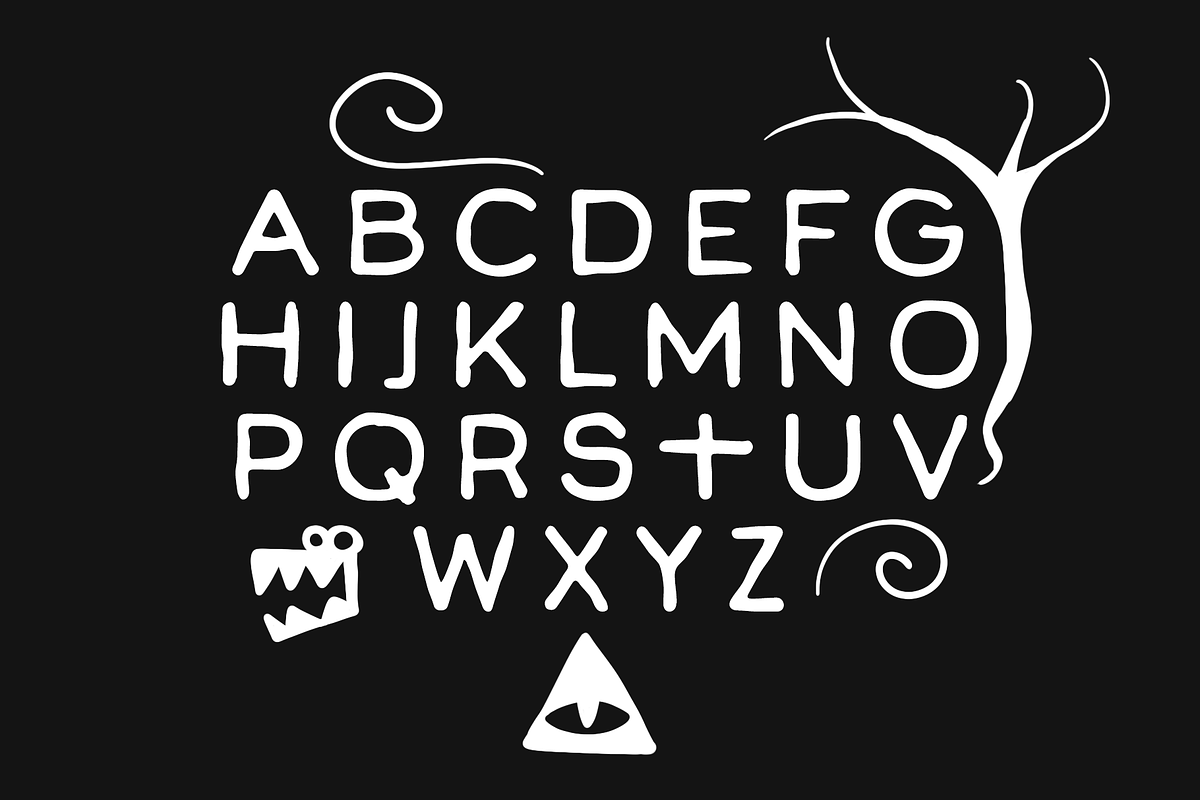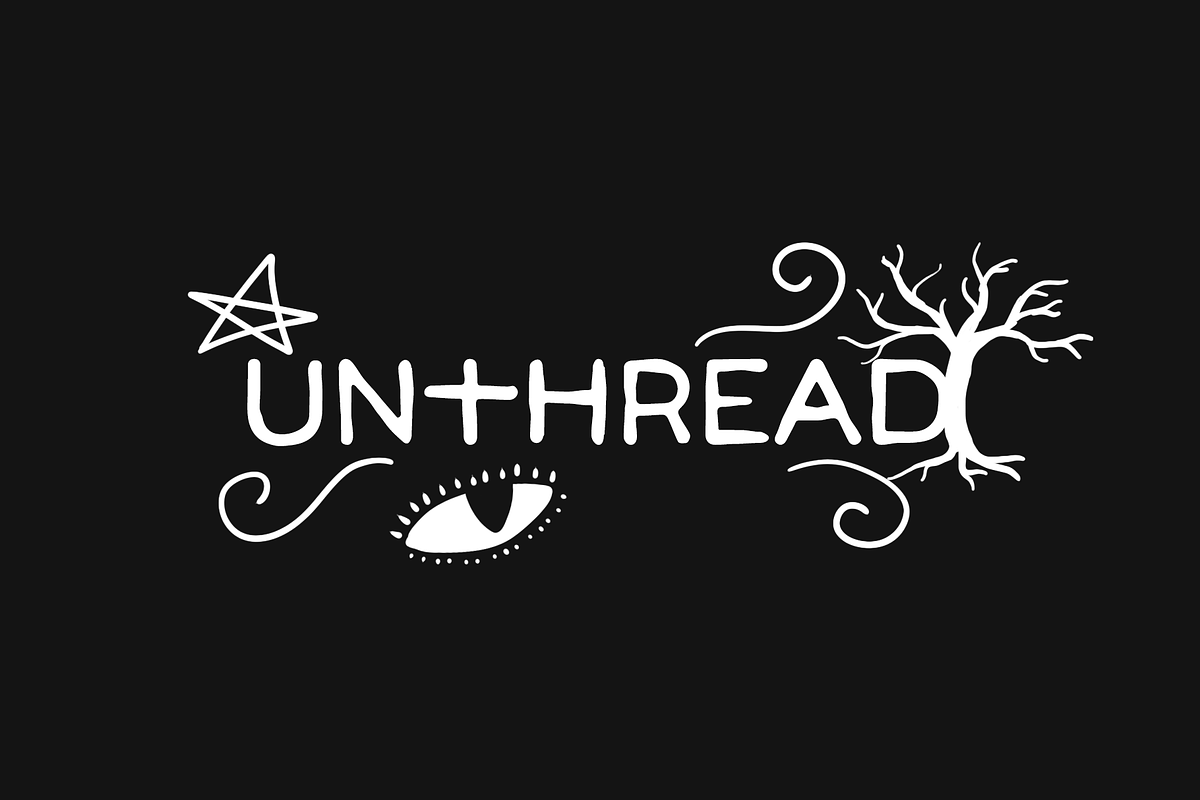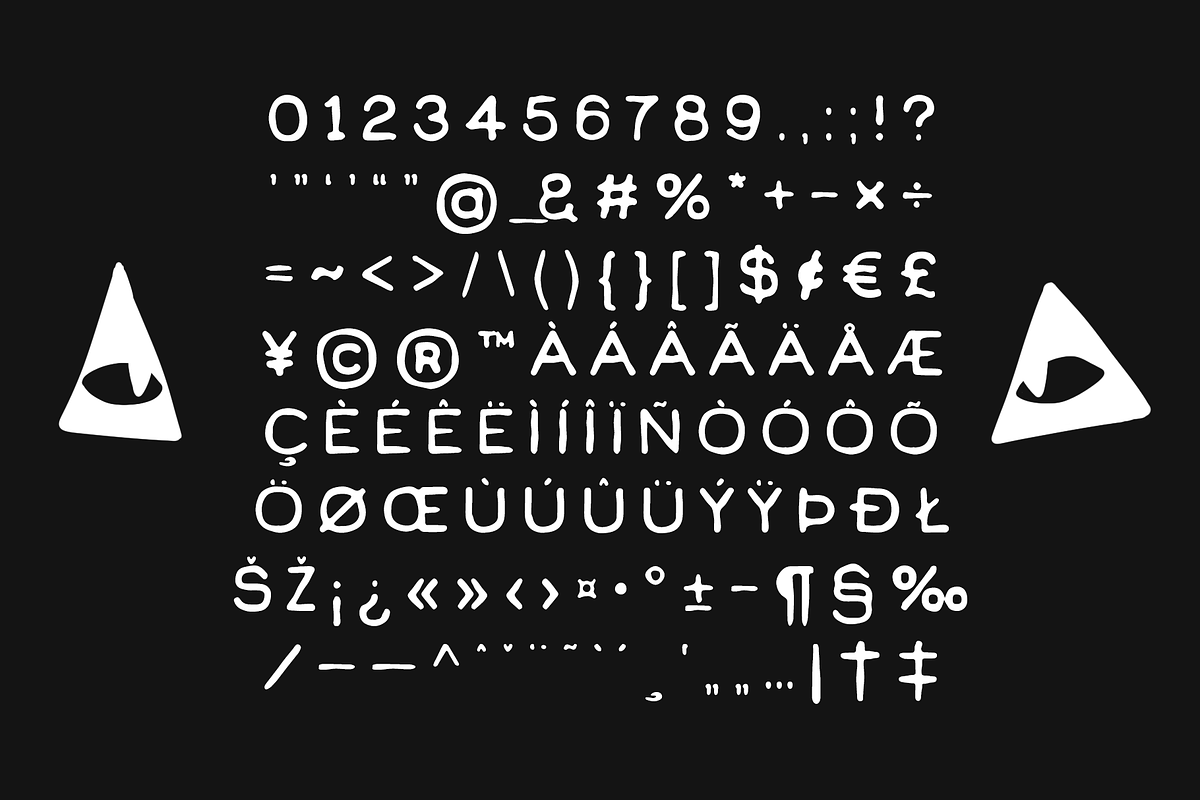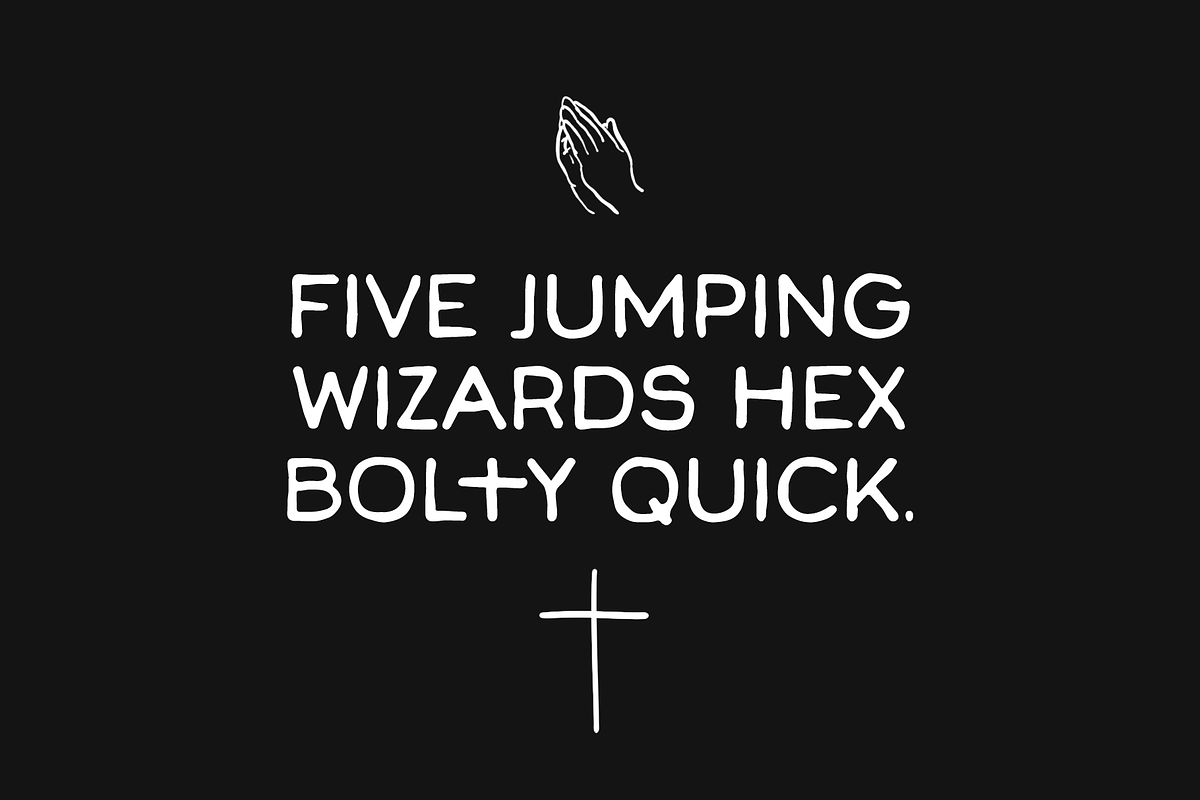
Unthread
I love this font. For real. I think I've never seen anything like this before. Such style, so beautiful! I wish I could use this font everywhere I go. Don't tell me you don't feel the same...